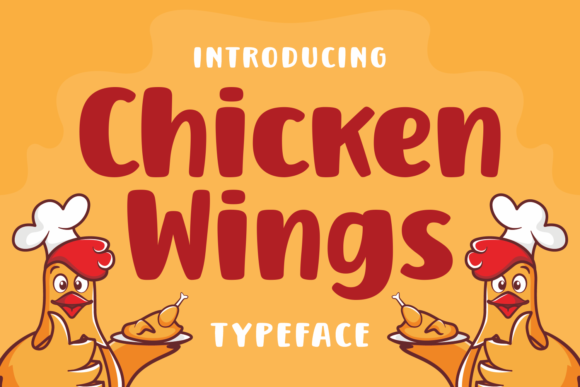
Introducing Chicken Wings Font, the whimsical and captivating display font that will add an instant burst of fun to all your creative projects. Crafted by the talented Situjuh, this font is a visual masterpiece that exudes joyfulness and imagination. With its thick, playful letters and an array of unique ligatures, Chicken Wings is perfect for anything from crafting and digital designing to presentations and greeting cards.
Step into a world of playful possibilities with Chicken Wings Font. Its cheerful, childlike charm will ignite your imagination and inspire you to create designs that are both captivating and unforgettable. Picture the delight on your audience's faces as they encounter your designs adorned with the whimsical curves and jovial strokes of Chicken Wings.
Whether you're a seasoned designer or just starting out, Chicken Wings Font is the perfect addition to your creative toolbox. Its user-friendly nature makes it accessible to all skill levels, allowing you to effortlessly incorporate its magic into your designs. Unleash your creativity and embark on a journey of endless artistic possibilities with Chicken Wings Font.
Don't let dull and monotonous fonts hold you back from expressing your true creative potential. Embrace the playful spirit of Chicken Wings Font and watch as your designs transform into vibrant expressions of imagination and joy. Say goodbye to ordinary and hello to extraordinary with Chicken Wings Font.
Chicken Wings Font is the perfect choice for:
• Storybooks: Bring your children's stories to life with the whimsical charm of Chicken Wings Font. Its playful letters will make reading an enchanting experience, captivating young minds and leaving a lasting impression.
• Greetings Cards: Create heartfelt greetings cards that radiate warmth and cheer with Chicken Wings Font. Its jolly appearance will spread joy and make every occasion extra special.
• Crafting: Add a touch of whimsy to your handmade crafts with Chicken Wings Font. Its bold, thick strokes will make your projects stand out and bring a smile to everyone's face.